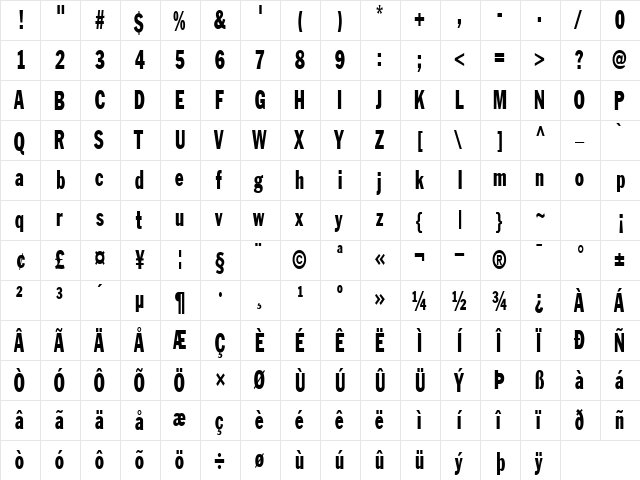
LibraryGothicHeavyCondensed Regular Font Preview
Design Context for LibraryGothicHeavyCondensed Typeface
LibraryGothicHeavyCondensed takes a clean, functional approach — its unadorned letterforms prioritise legibility and work reliably across screen and print environments. Its narrow stance lets it pack a punch even in space-constrained designs.
Font Pairing: Works well alongside a characterful serif or display font that can carry the expressive load while LibraryGothicHeavyCondensed handles the functional copy.
Pro Tip: Use LibraryGothicHeavyCondensed tightly set in headlines and banners — its condensed proportions make it ideal for maximum impact in minimum horizontal space.